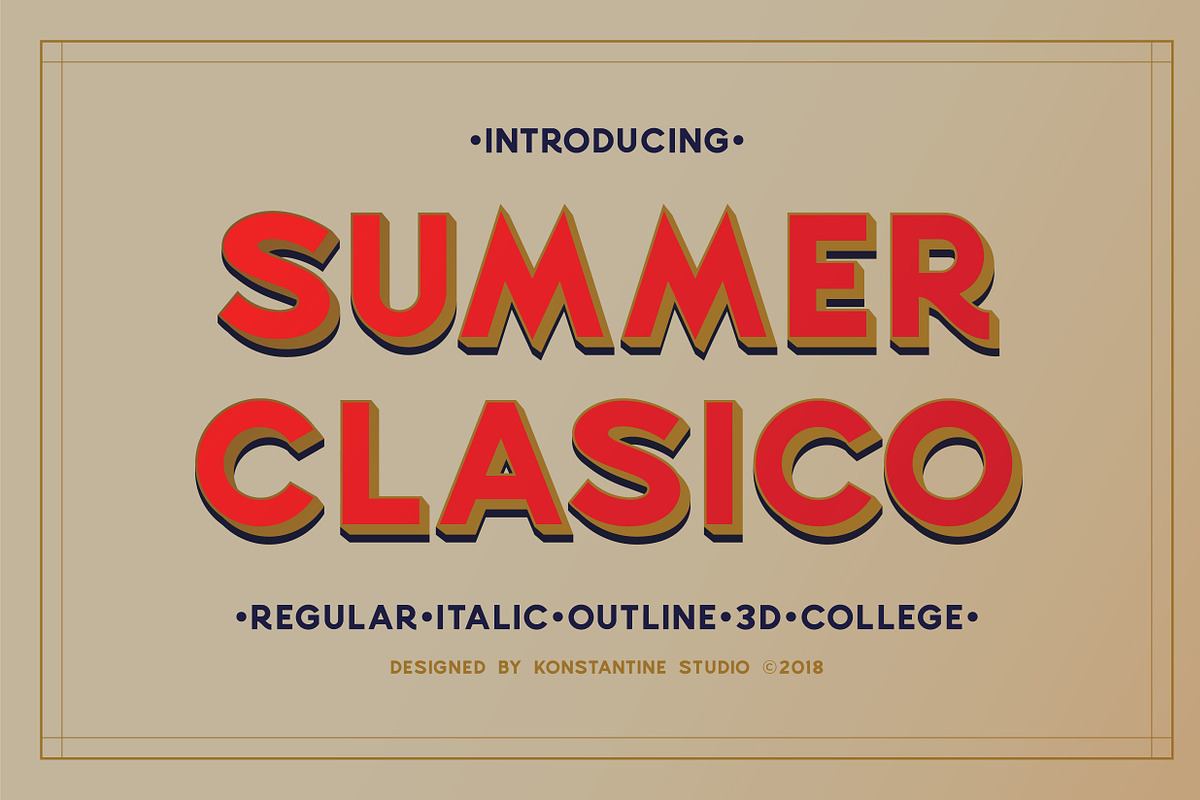
SUMMER CLASICO - Vintage Font Free Download
Bold, nostalgic, and full of summer flair, SUMMER CLASICO - Vintage Font Free Download is a retro-inspired typeface perfect for eye-catching designs that need a warm, vintage vibe. Whether you're working on posters, branding, packaging, t-shirt designs, or travel-themed visuals, this font delivers a sun-soaked, timeless aesthetic.
With its classic letterforms and subtle vintage imperfections, Summer Clasico captures the essence of old-school charm while remaining highly readable and stylish. It's a great choice for projects that aim to blend personality with a touch of retro elegance.